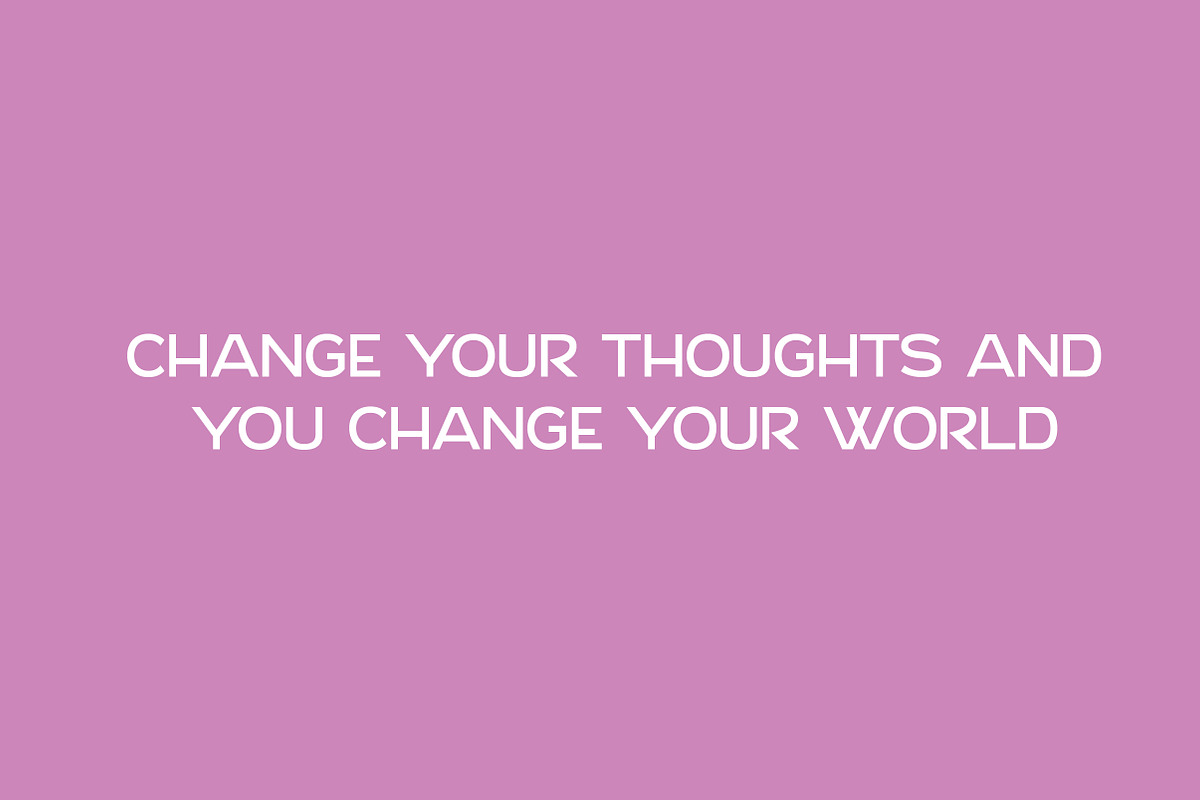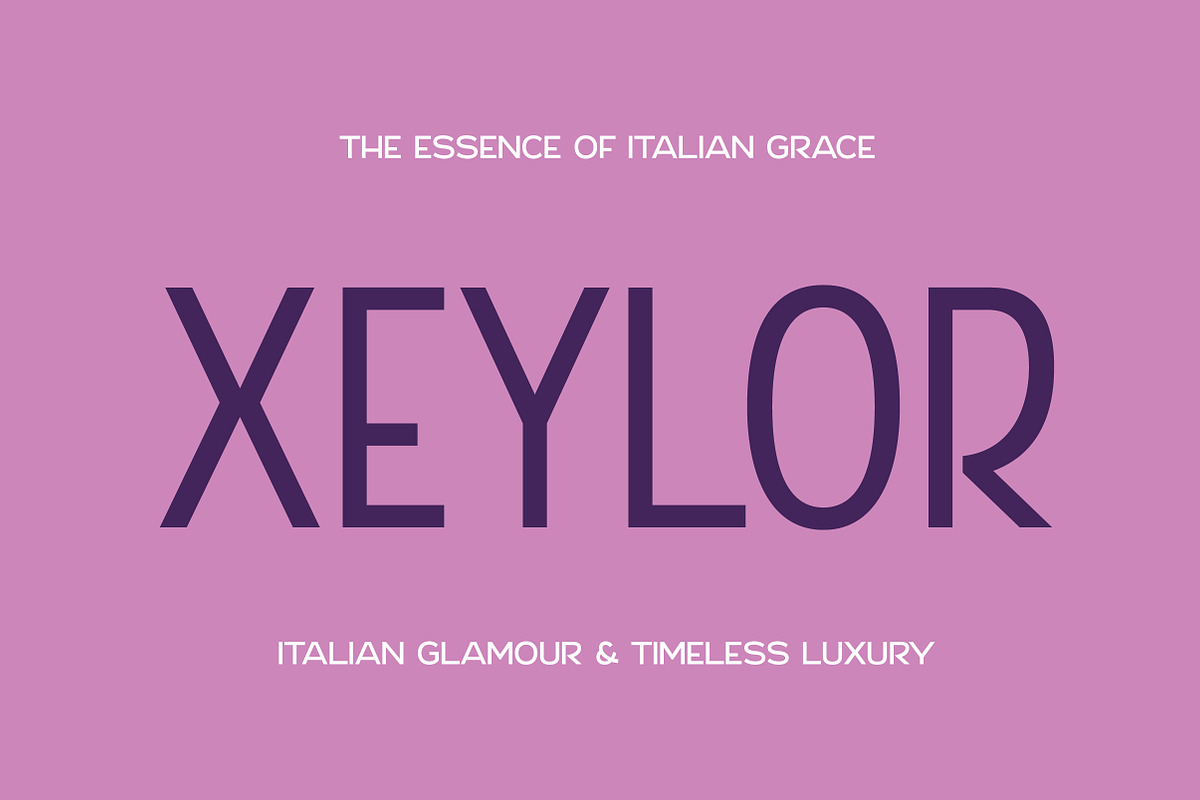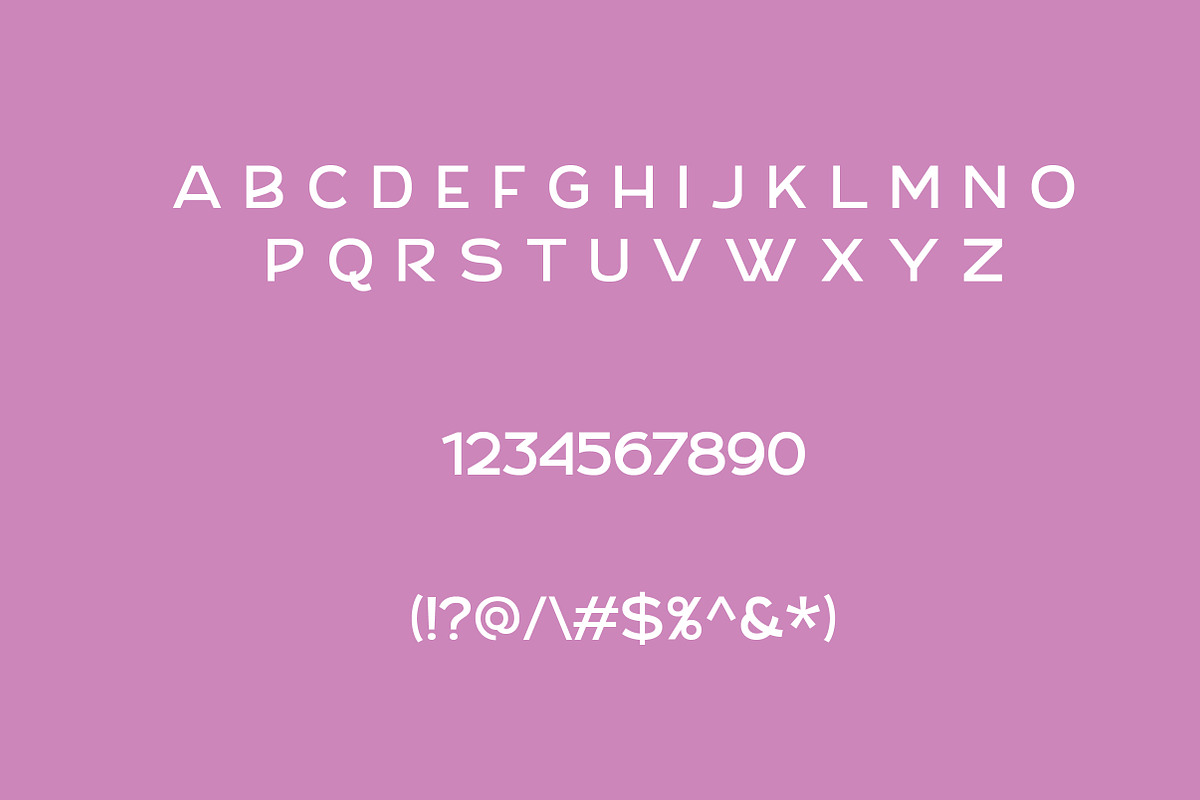
Xeylor | Strong Sans Serif Font
Xeylor is a bold and confident sans serif typeface designed to make a strong visual impact. With its sharp lines, solid structure, and modern appearance, Xeylor is perfect for headlines, logos, posters, packaging, and powerful branding statements.
Crafted for clarity and presence, Xeylor brings attention to your message with bold elegance. It’s an excellent choice for both digital and print projects where strength and simplicity are key.
Xeylor is the ideal font for designers who want a clean, modern, and striking typeface that commands attention.